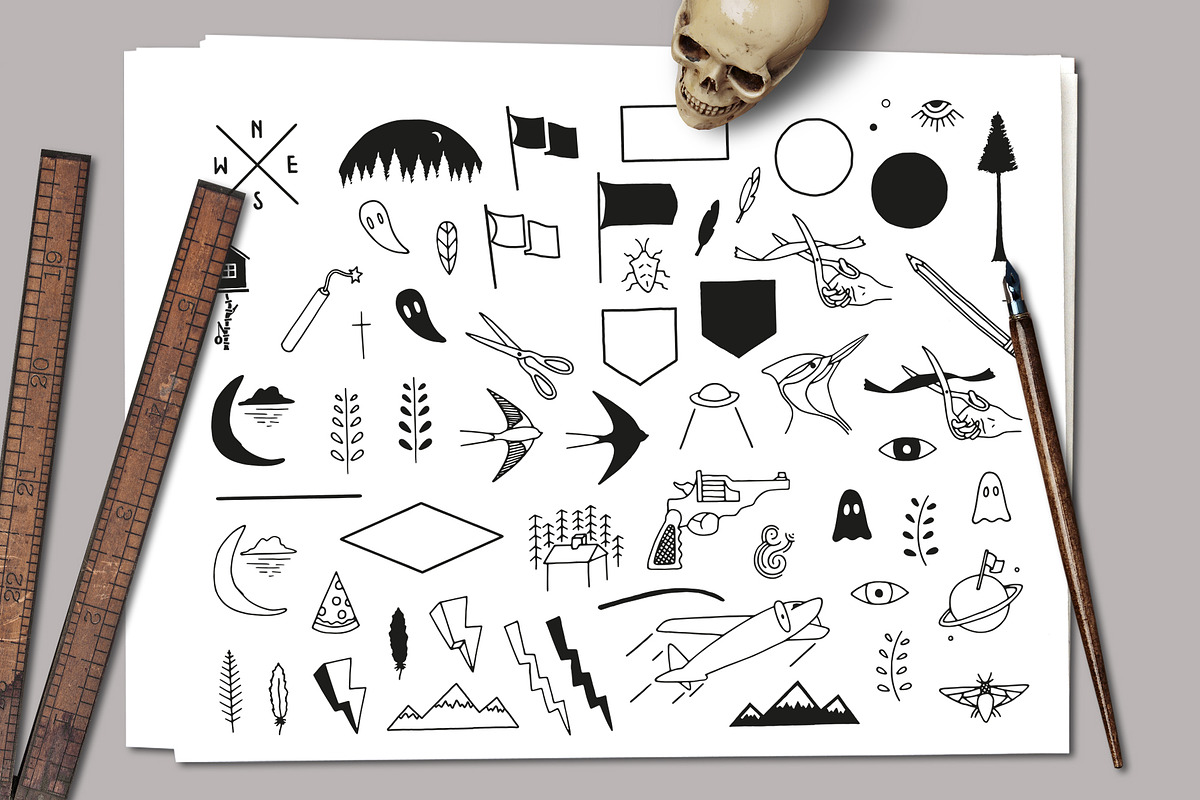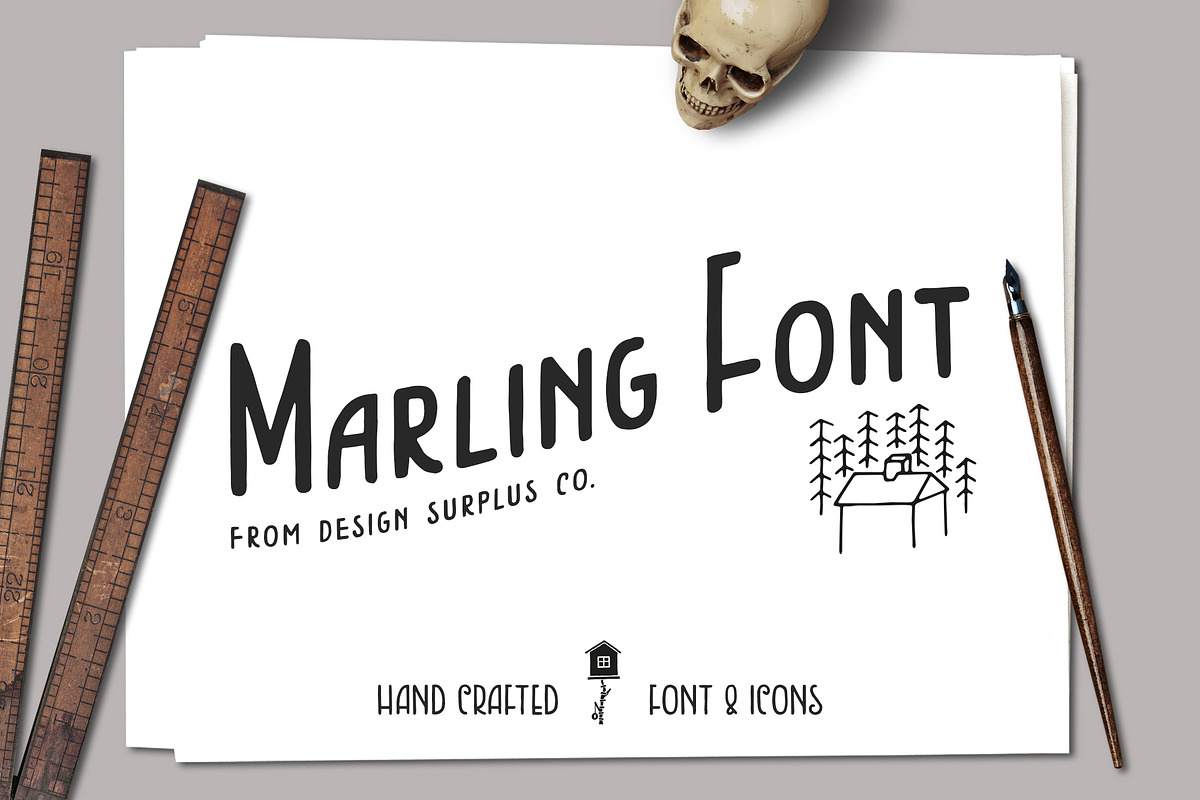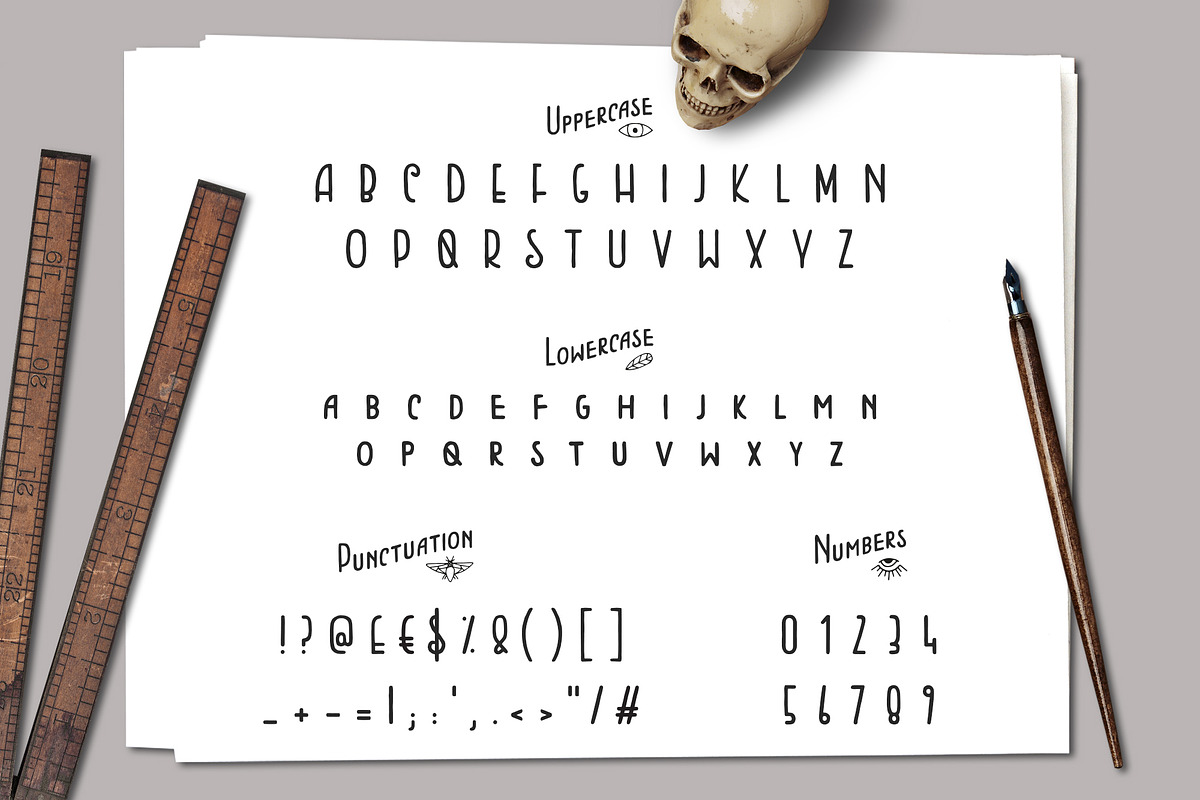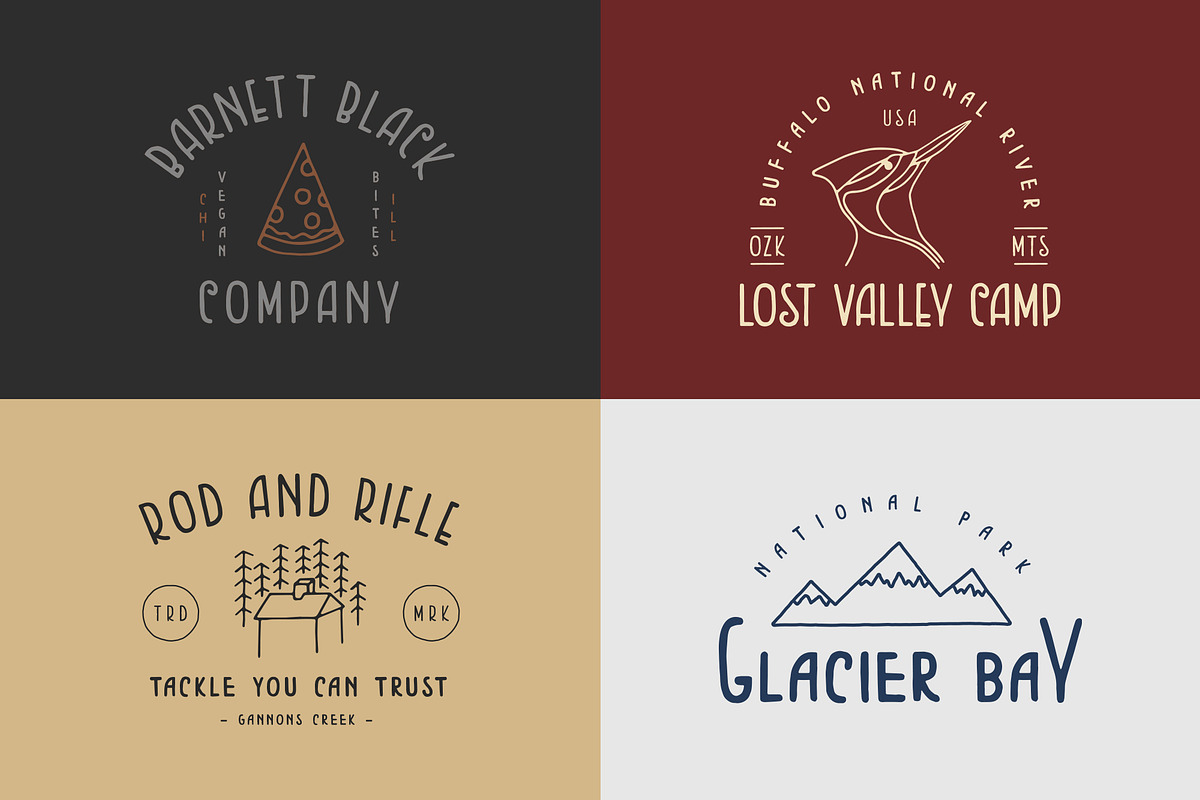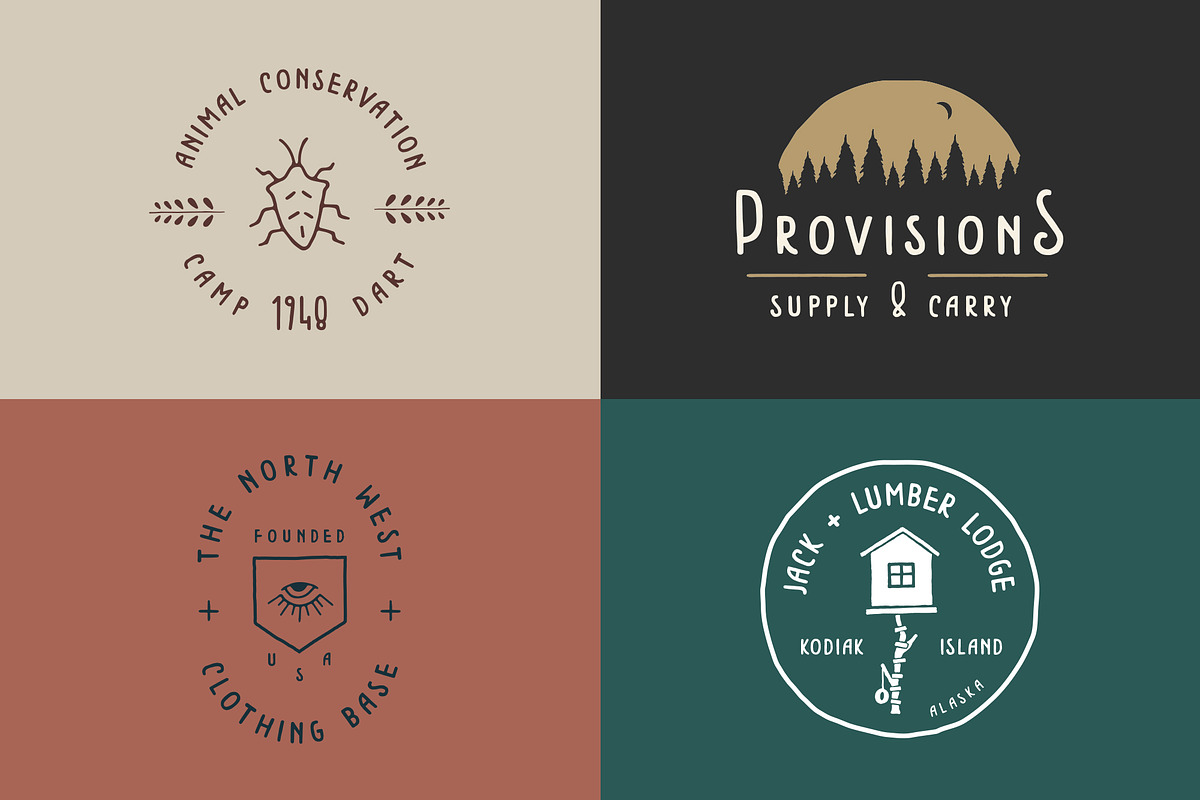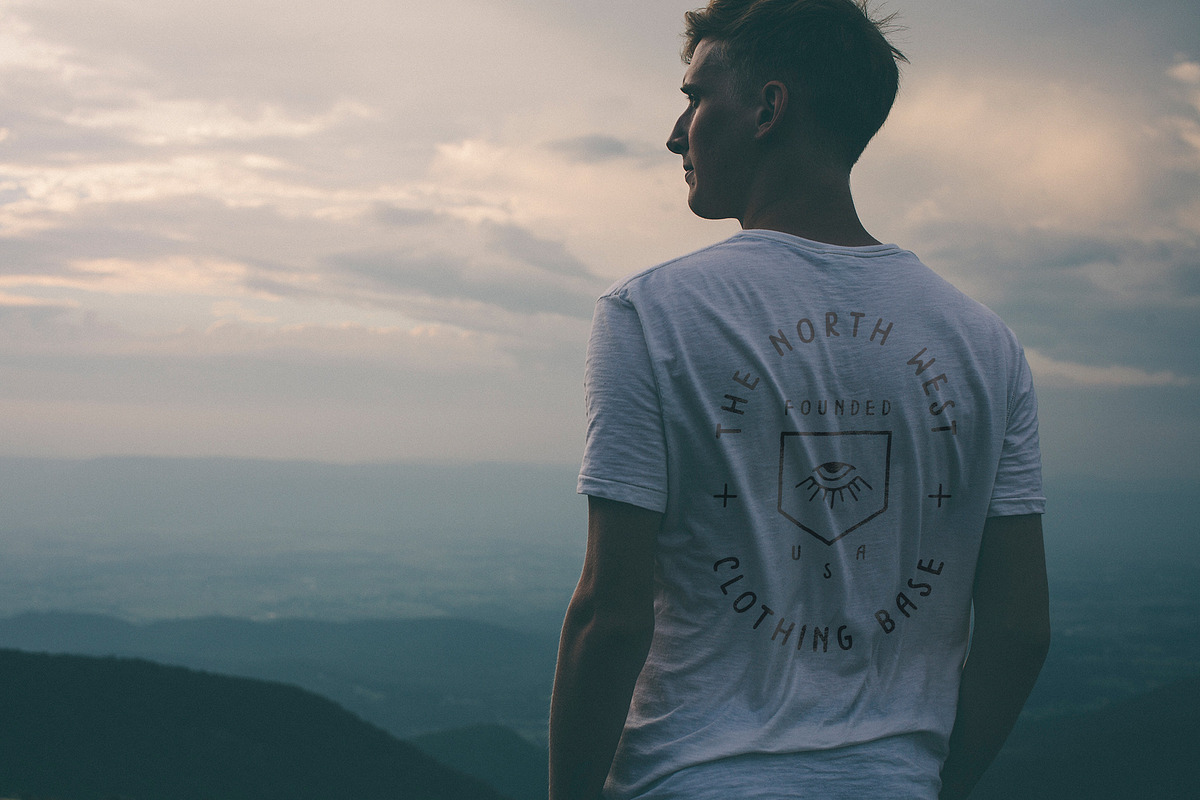
Marling Font
Marling Font by Design Surplus is a font selected for branding, posters, packaging, typography.
- With it's tall uppercase and stumpy lowercase, Marling gives you authentic hand drawn imperfections with a clean and minimalist aesthetic.
Why Marling Font is worth a look
Marling Font by Design Surplus fits naturally into Branding, posters, packaging, typography.